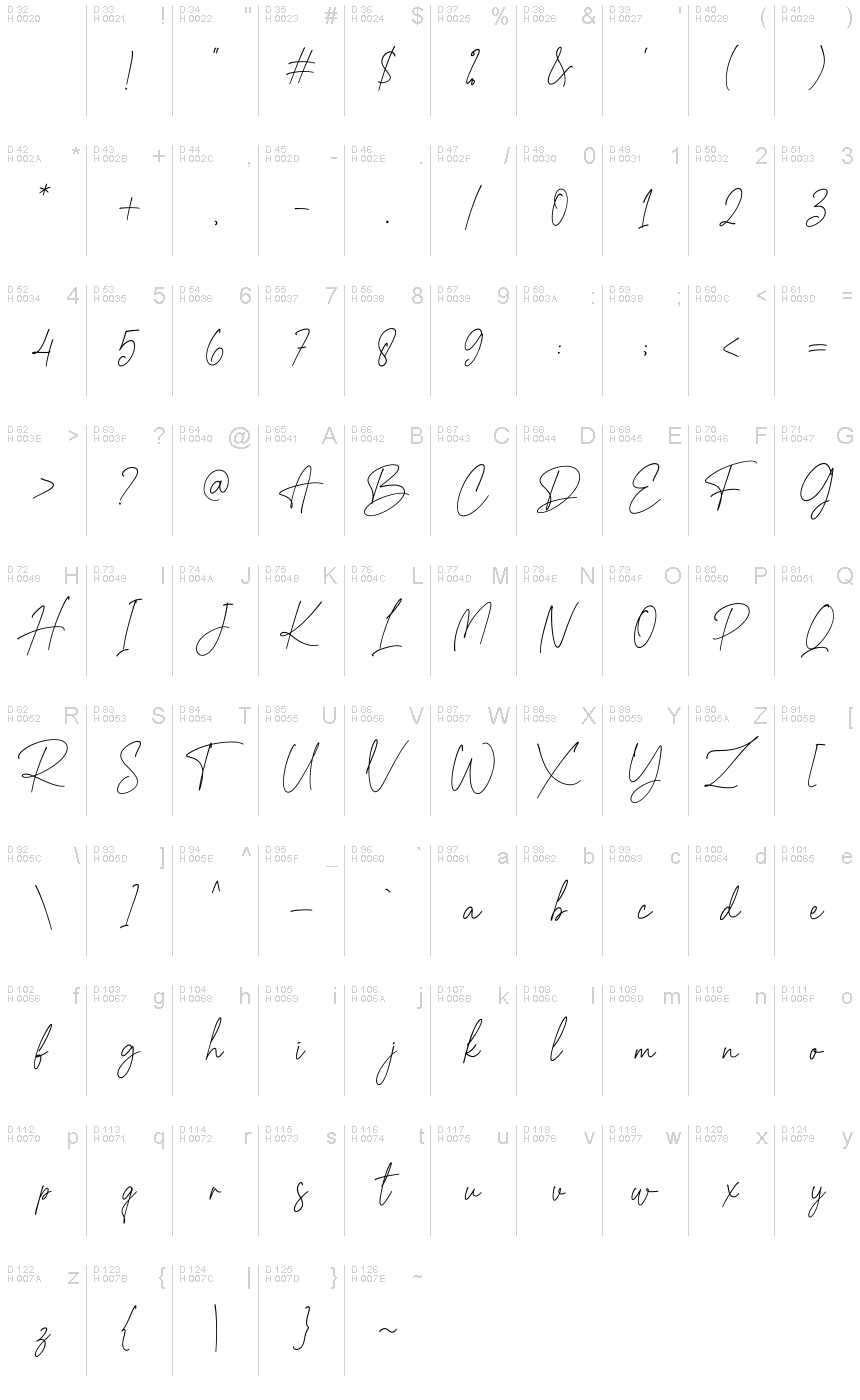
Hello August
Hello August, designed by Mozatype, is a handwritten font that exudes a blend of casual elegance and a personal touch. Its extra-light weight gives it an airy, delicate presence that can add a whisper of sophistication to any design. The graceful curves and fine lines of this typeface mimic the natural variations and fluidity found in human penmanship, making it incredibly versatile for projects aiming to convey authenticity and warmth.
The aesthetic appeal of Hello August lies in its understated charm and the effortless way it communicates. It's perfect for invitations, branding, editorial design, and personalized goods where a touch of intimacy is desired without sacrificing style. With each character thoughtfully crafted to create harmony and visual interest, Hello August is a font that can make your creative endeavors feel as if they were handcrafted with love.